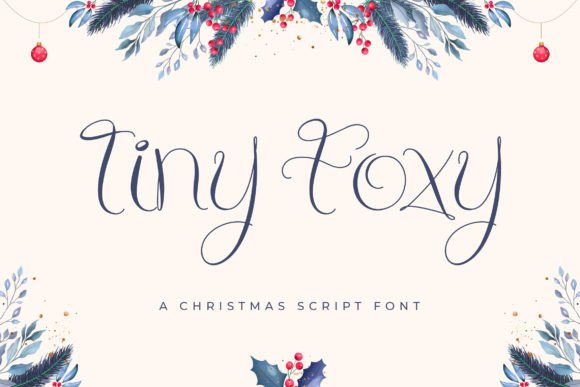
In a world brimming with holiday cheer, let your designs dance to the rhythm of "Tiny Foxy," a Christmas script font that weaves enchanting tales with every letter. This font, crafted with meticulous care, captures the magic of the season, infusing your projects with festive jubilance.
With its elegant and playful letterforms, "Tiny Foxy" embodies the spirit of Christmas. Each character is a delicate dance of curves and swashes, breathing life into seasonal greetings, invitations, branding, and more. Its charm is undeniable, adding a touch of whimsy to merry cards, event announcements, gift tags, and social media graphics.
As you embrace "Tiny Foxy," you embark on a journey through a winter wonderland where snowflakes twirl and carols fill the air. Your designs will radiate warmth and joy, captivating your audience with its undeniable Christmas charm.
Imagine the delight on your loved ones' faces as they receive cards penned in "Tiny Foxy's" enchanting script. Envision the excitement of friends and family as they gather for holiday celebrations, surrounded by décor adorned with this playful font. With "Tiny Foxy," your designs become a reflection of the magic and wonder of the season.